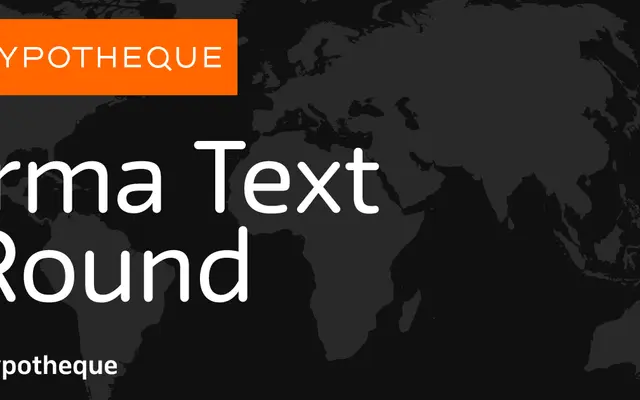
Irma Text Round specimen from Typotheque
A rounded-terminal text sans within Typotheque's Irma system, offered in nine weights with matching italics and a variable font option.
Part of the expansive Irma type system, this cut adds rounded terminals to the standard Irma Text structure, lending a softer register while preserving text-setting clarity across nine weights from Thin to Black. Each weight ships with an italic, and a variable font covers the full weight range. The broader system encompasses display, slab and narrow subfamilies, making it suited to editorial and branding projects requiring stylistic consistency across multiple contexts.
A text-optimised humanist sans with rounded terminals, sitting within the broader Irma system alongside slab, display and narrow variants. The rounded variant softens the standard Irma Text cuts while retaining its structured, legibility-focused skeleton.